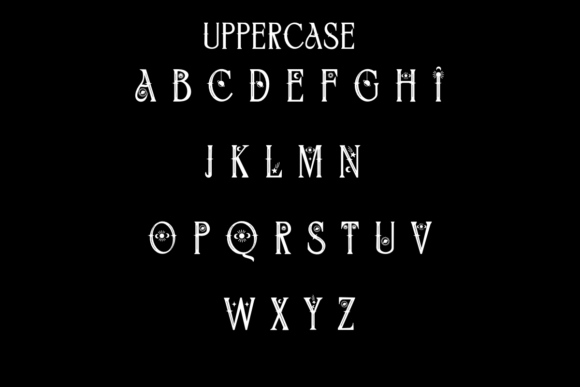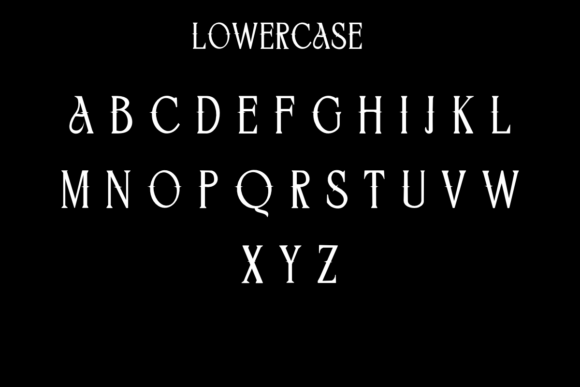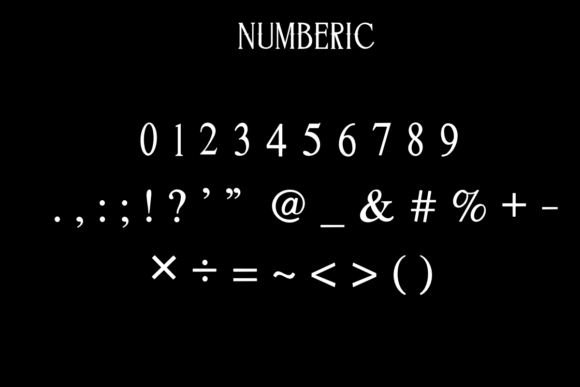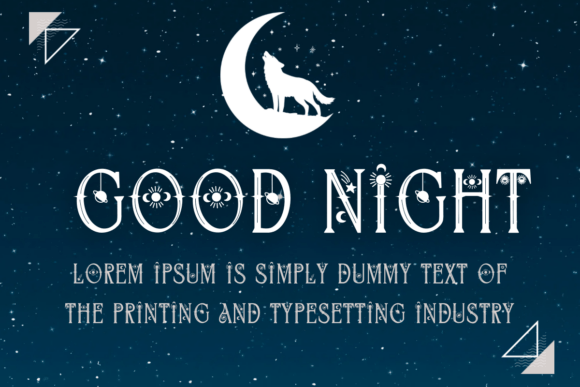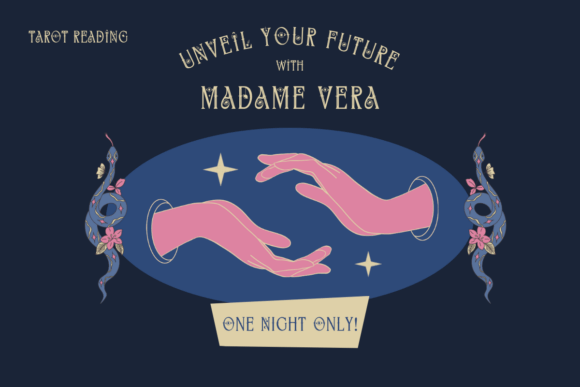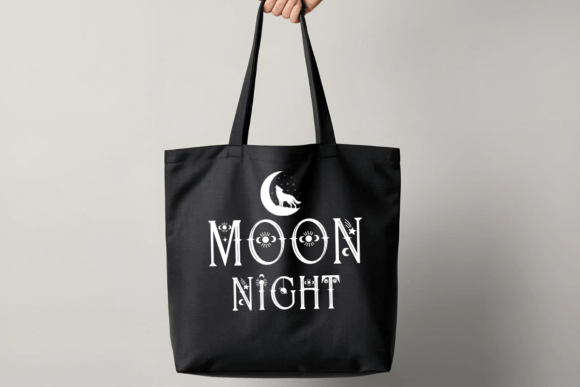
Introduction to Mystic Night Font
Mystic Night is an enchanting decorative font inspired by the mysteries of the cosmos and esoteric symbolism.
With celestial illustrations such as moons, stars, planets, and mystical eyes embedded into each character, this typeface offers a magical and dreamlike aesthetic It’s perfect for witchy branding, tarot packaging, astrology blogs, crystal shops, or anything that needs a mystical twist.